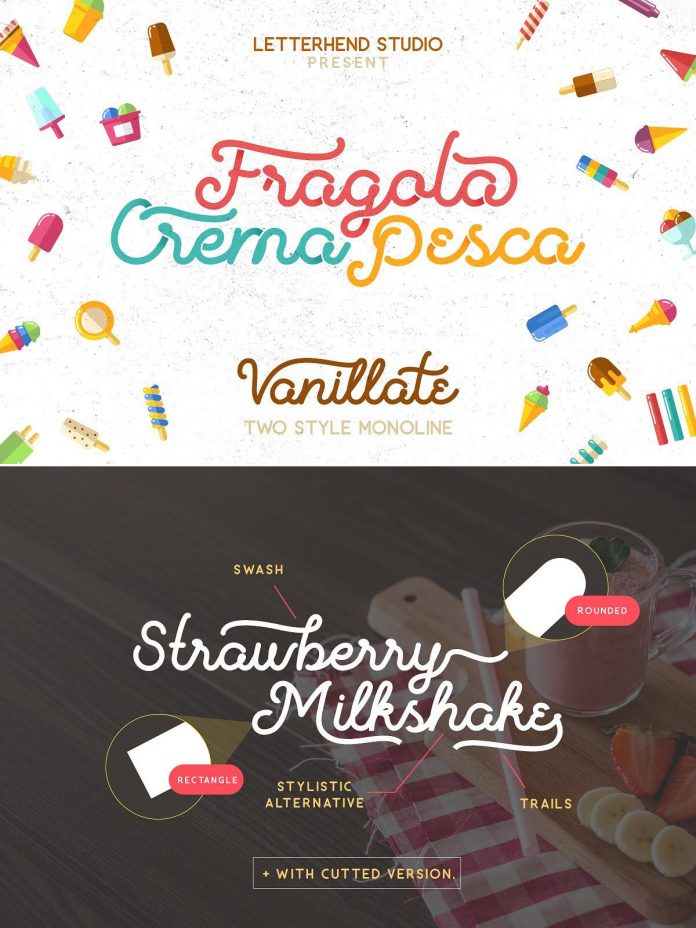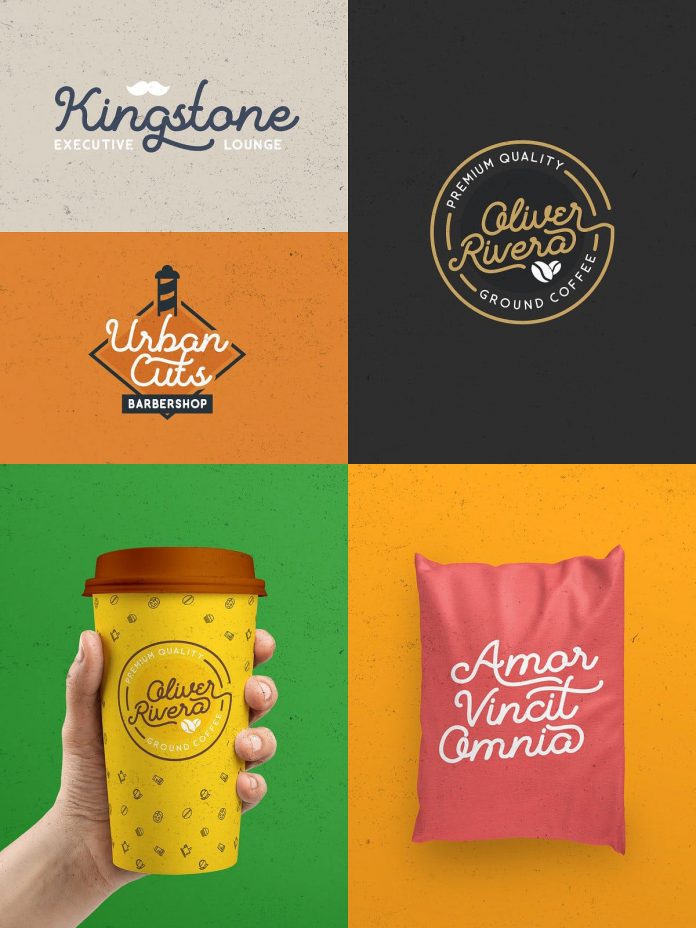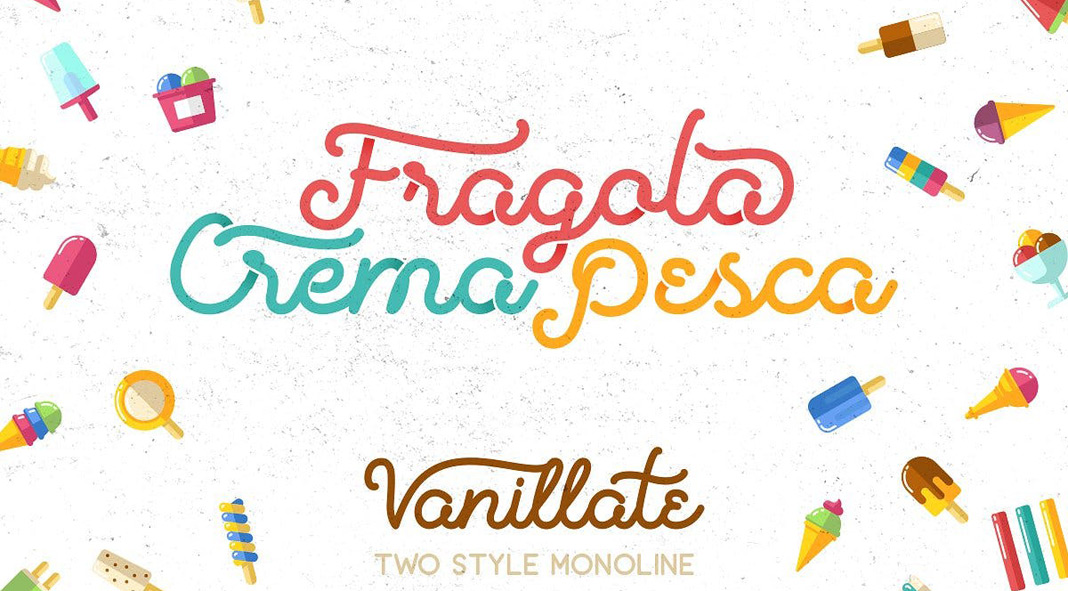
Vanilatte, a not-so-serious but fun font duo created by Letterhend Studio.
The people at Letterhend Studio are known for plenty of typefaces ranging from vintage to modern styles. Vanilatte is a unique font duo that doesn’t take itself too seriously. This monoline script typeface is equipped with uppercase and lowercase letters as well as punctuations, symbols, numerals, alternates, ligatures, etc. It’s quite fun to work with this exceptional font duo. You can use it for birthday invitations, along with colorful illustrations, packaging, branding, or playful social media posts. To learn more about all features of the Vanilatte font duo, just click on one of the following links.